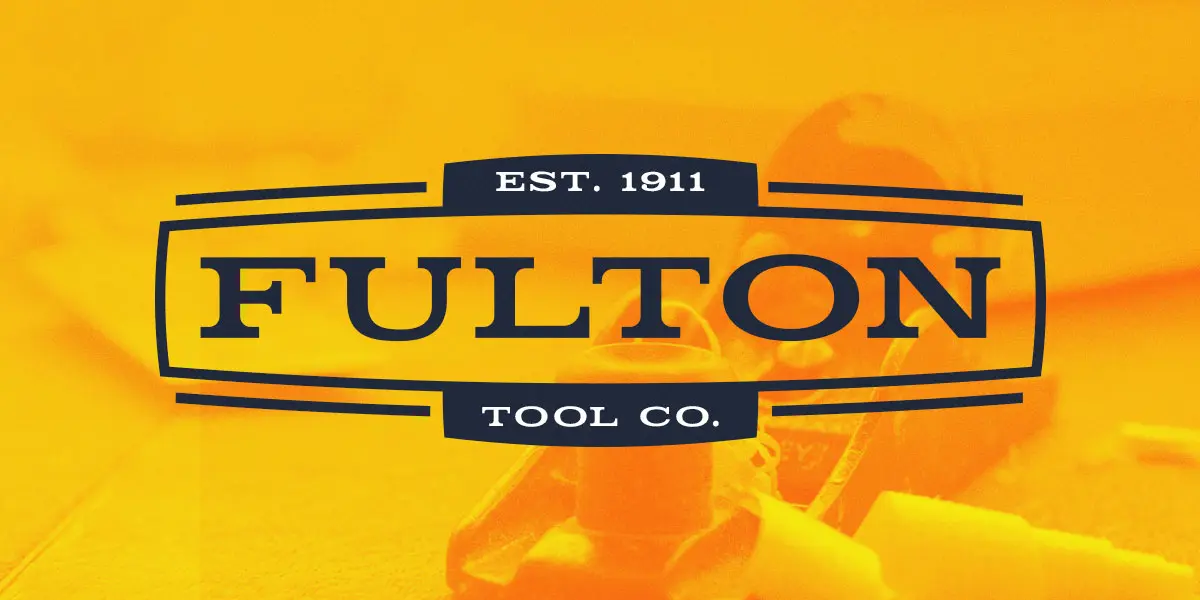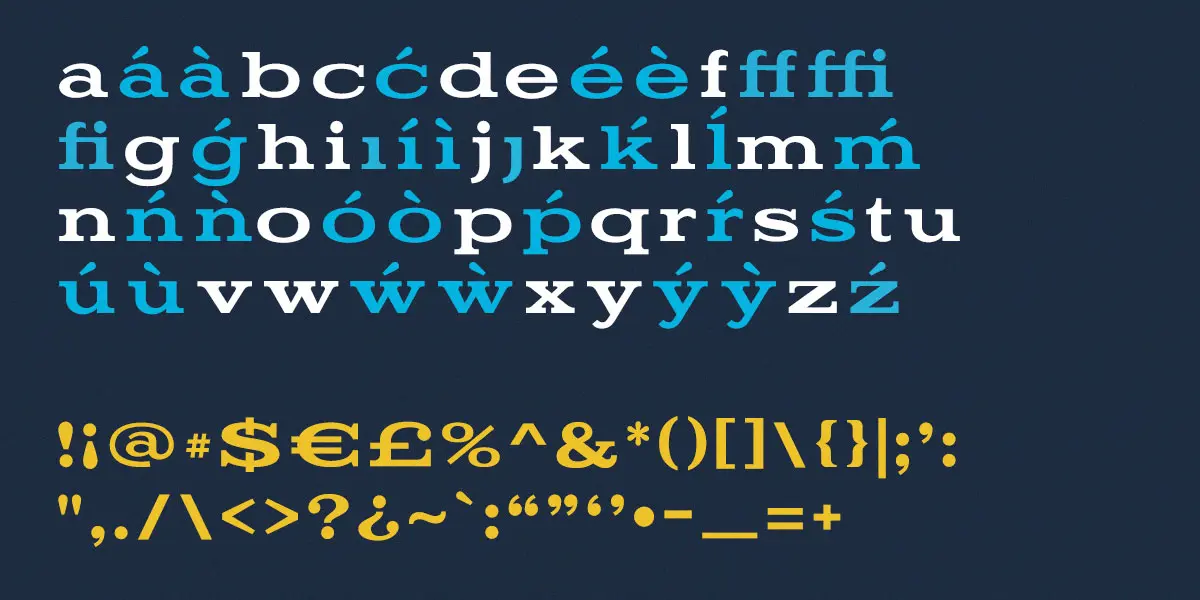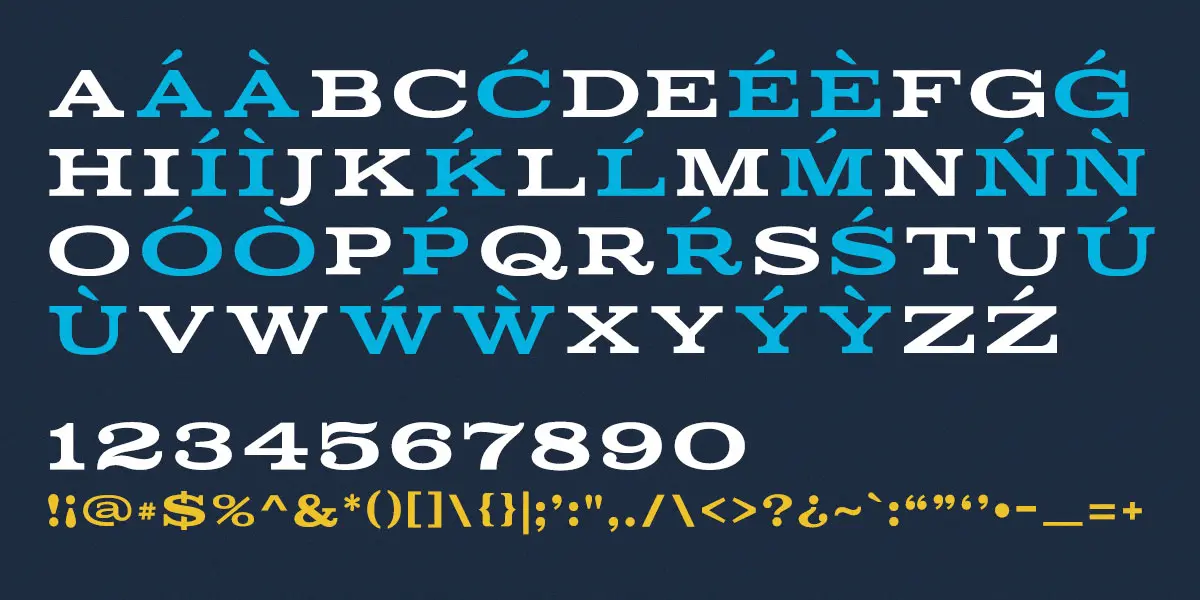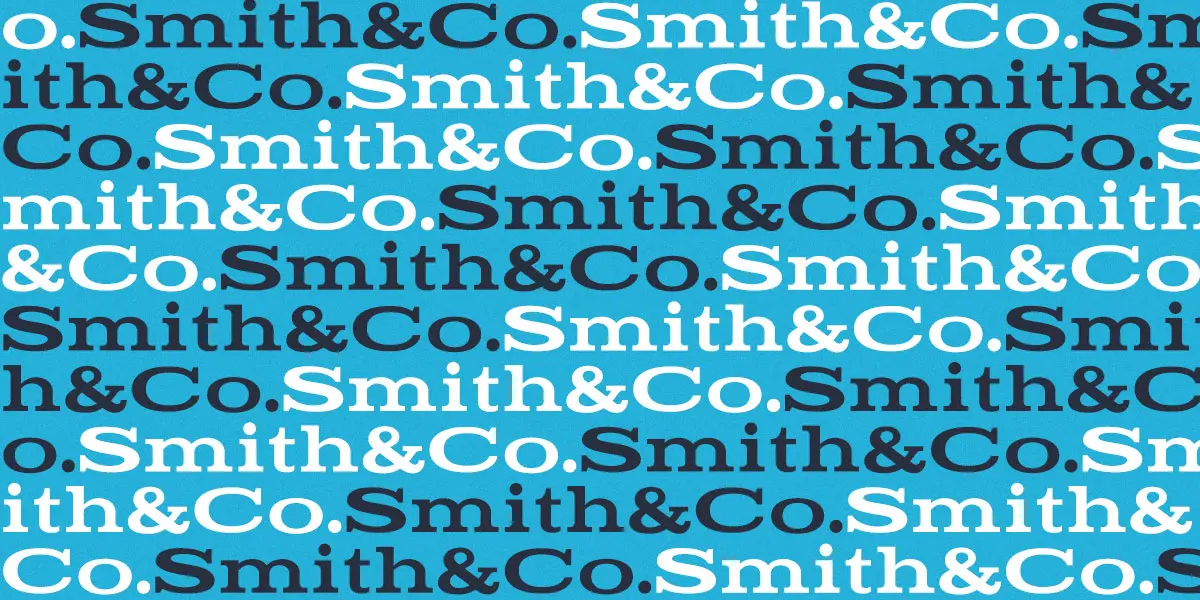
A hard-working slab serif display typeface drawn from the spirit of mid-19th century industrial type.
Porter draws its authority from the robust slab serifs of mid-19th century commercial printing — the kind of type that had to compete with noise, distance, and indifference. Designed for headlines and logotypes that need to hold their ground.
Works at any scale from editorial to outdoor. The generous slab serifs and even stroke weight ensure legibility under pressure.